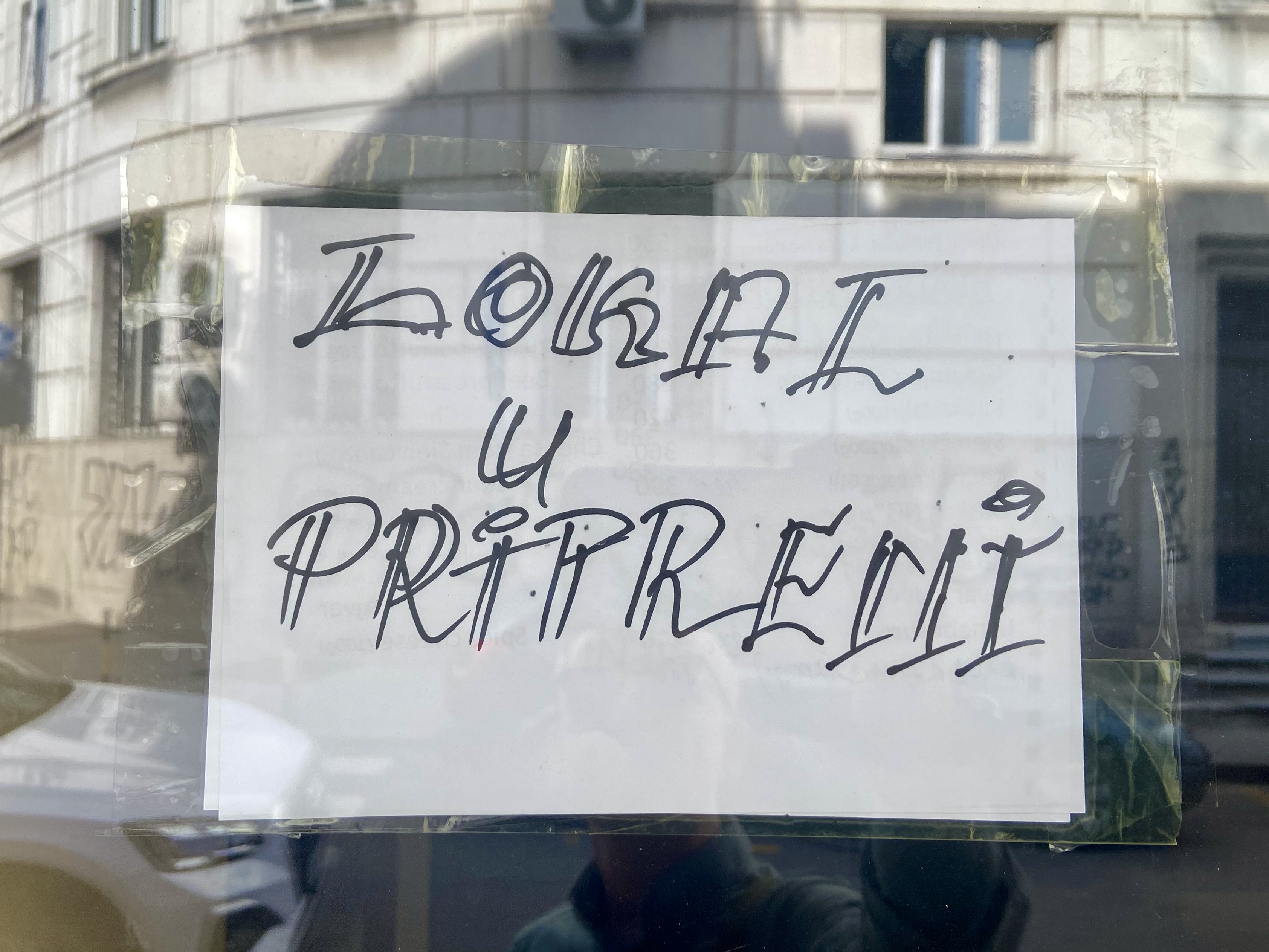
Lokal u pripremi
handwritten
Lokal u pripremi (The shop is under construction). The word 'pripremi' appeares to be misspelled, but actually there's actually a tiny dash at the top of right stem of 'M'.